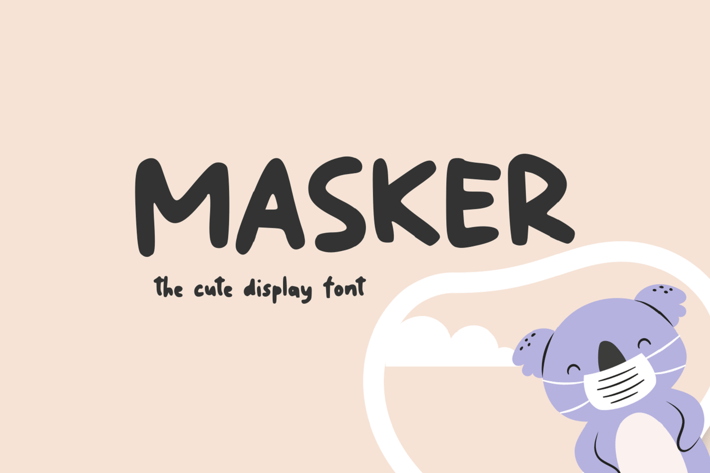
Masker - The Cute Display Font
Masker - The Cute Display Font, it’s perfect for logos, name card, magazine layouts, invitations, headers, or even large-scale artwork.